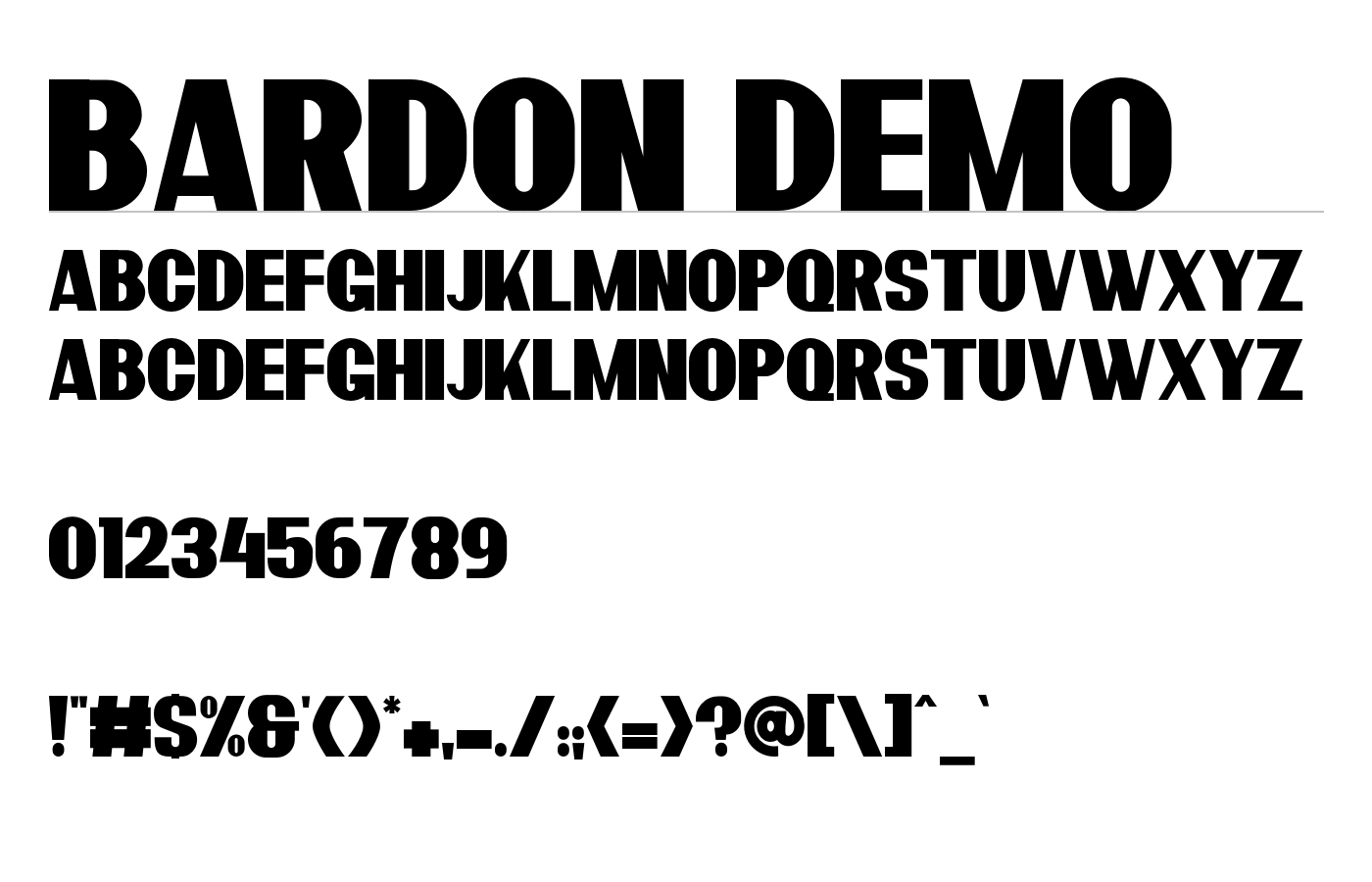
Bardon is a bold, condensed sans serif font with strong geometric shapes and a striking presence. Its heavy weight and tight spacing make it ideal for impactful headlines, logos, and branding that require a modern, authoritative look. This font works well in design contexts where clarity and strength are key, such as posters, editorial titles, and fashion or product packaging.
Bardon Font
About Bardon Font
| Font family | Bardon Font |
| Designer | Sabrcreative Studio |